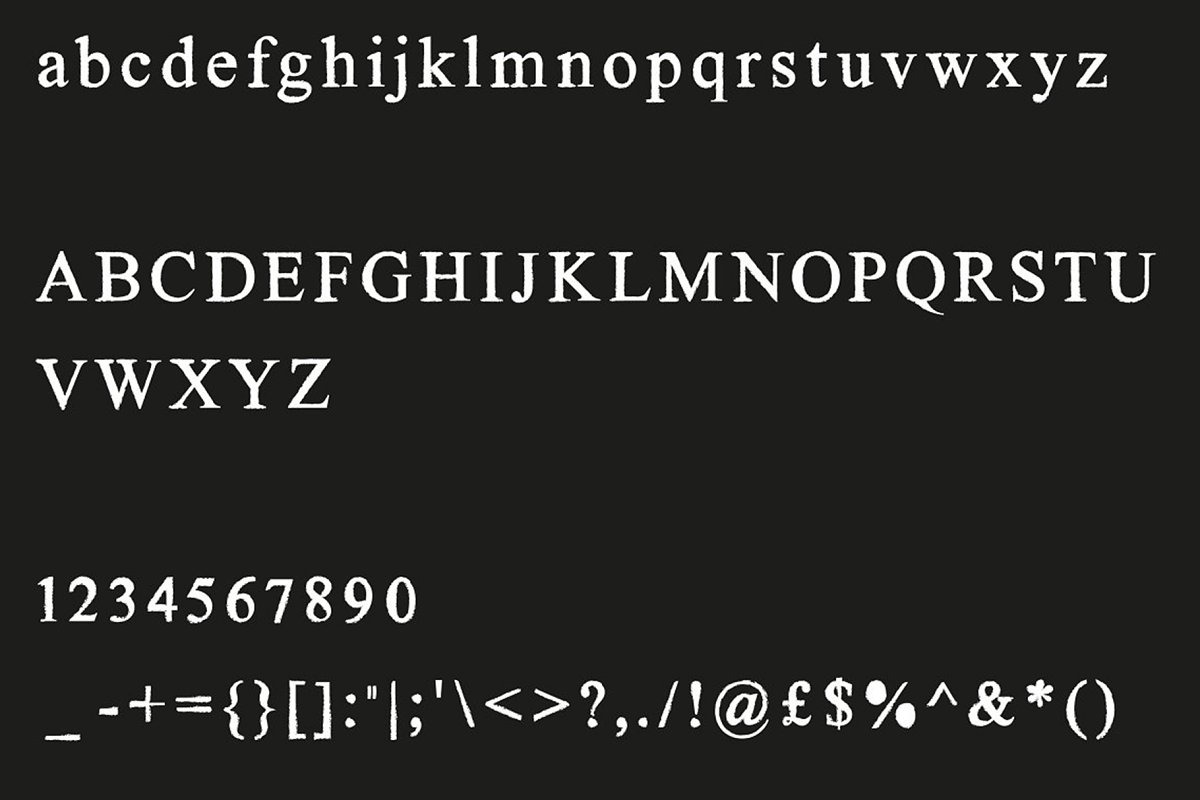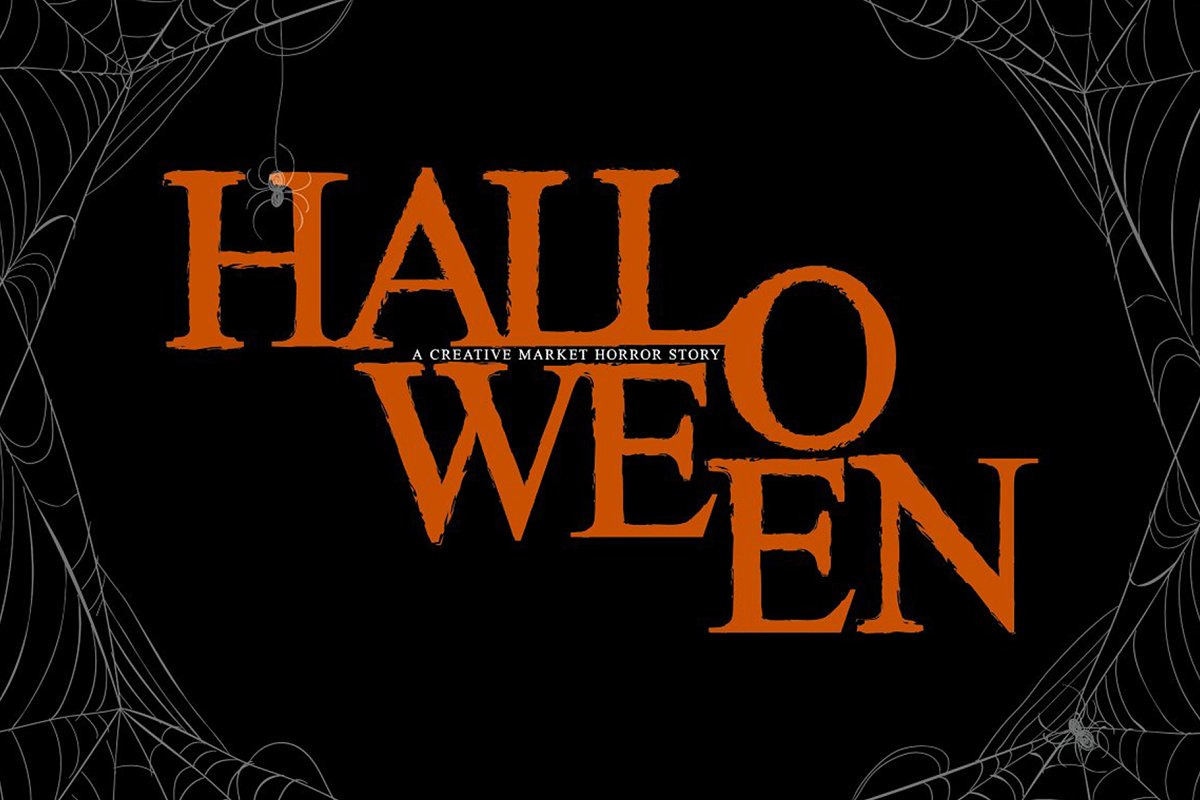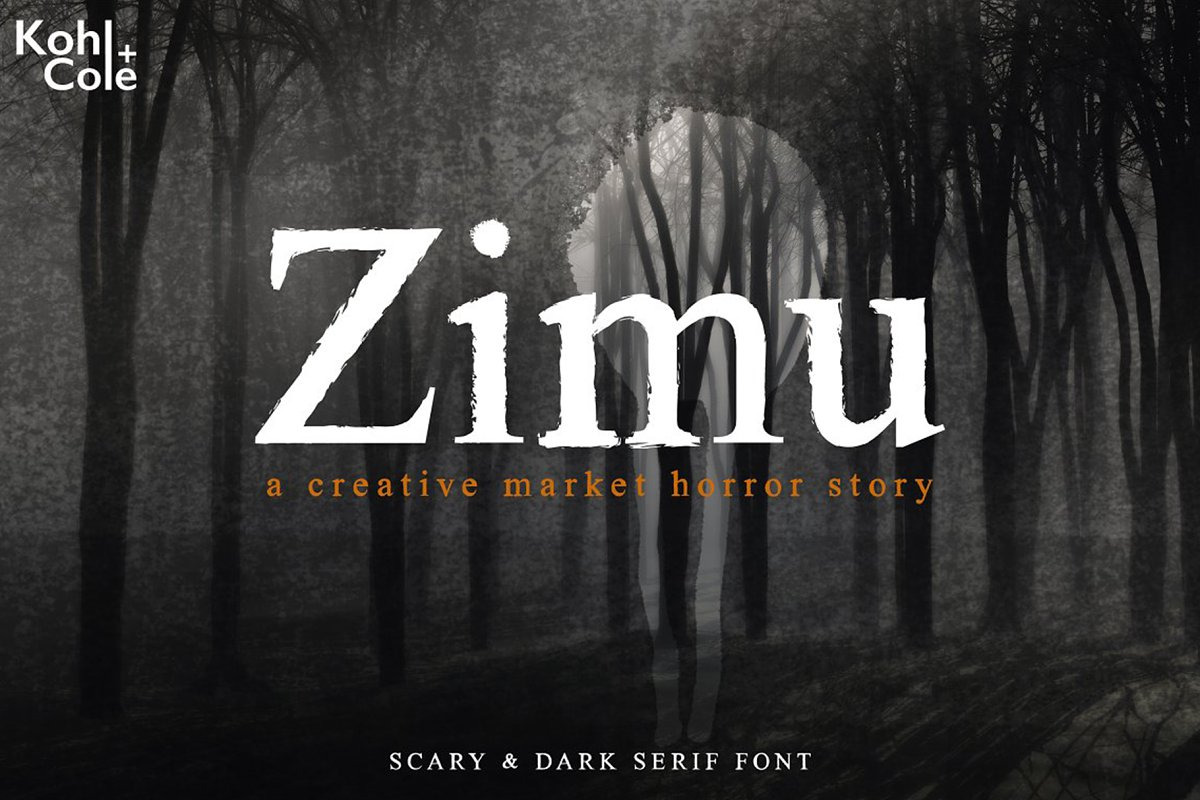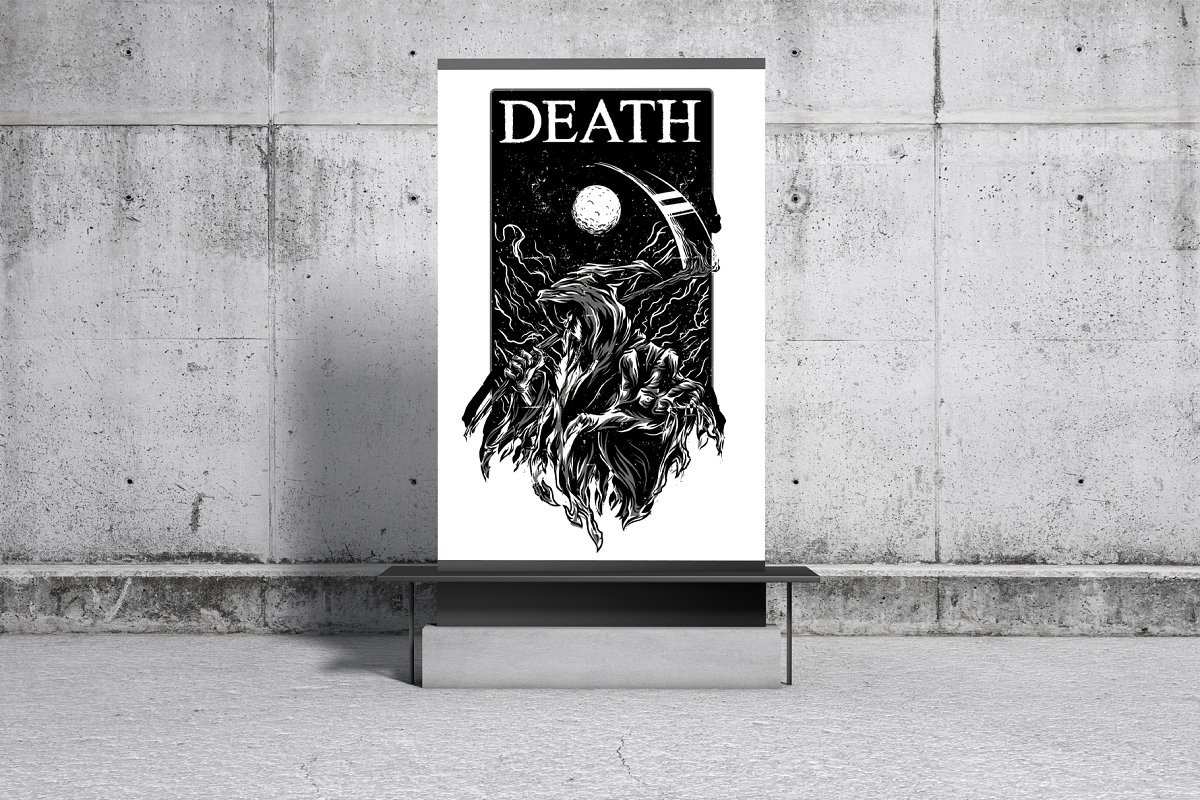
Zimu - Scary & Dark Serif Font
Zimu is a Dark, Grungy, Scary, Traditional Serif Font.
Zimu is perfect for adding spooky drama to your designs. The rough eerie texture of the font builds suspense and discomfort-into designs, perfect for scary horror designs. With Halloween just around the corner, this could be the just the font for your next spooky projects!